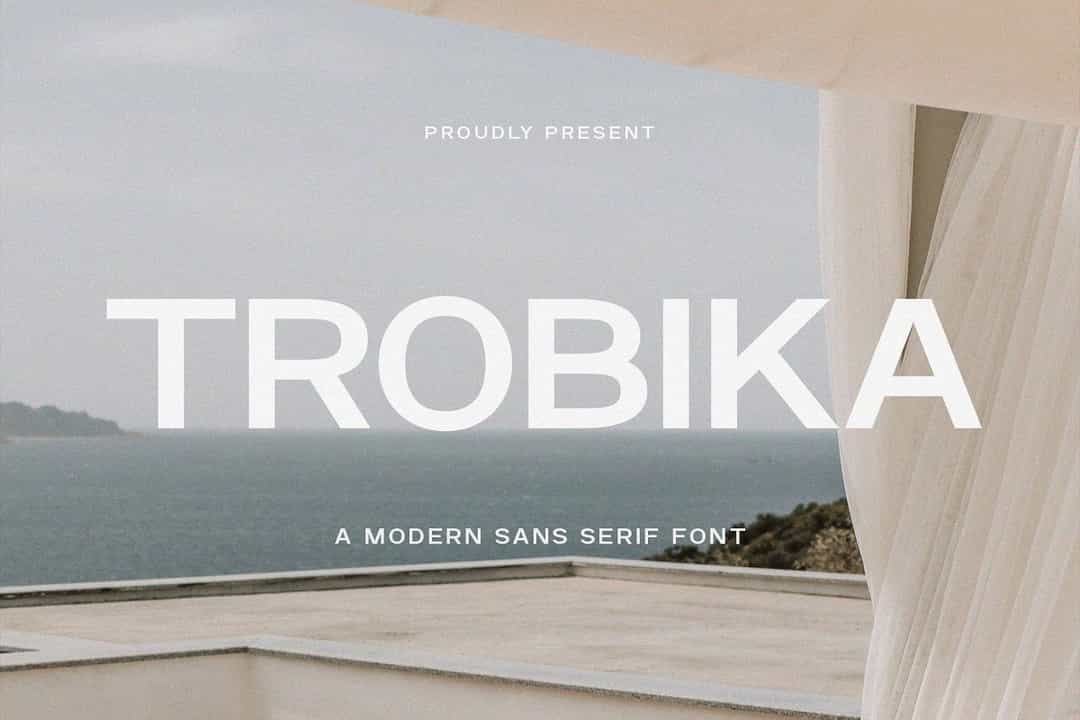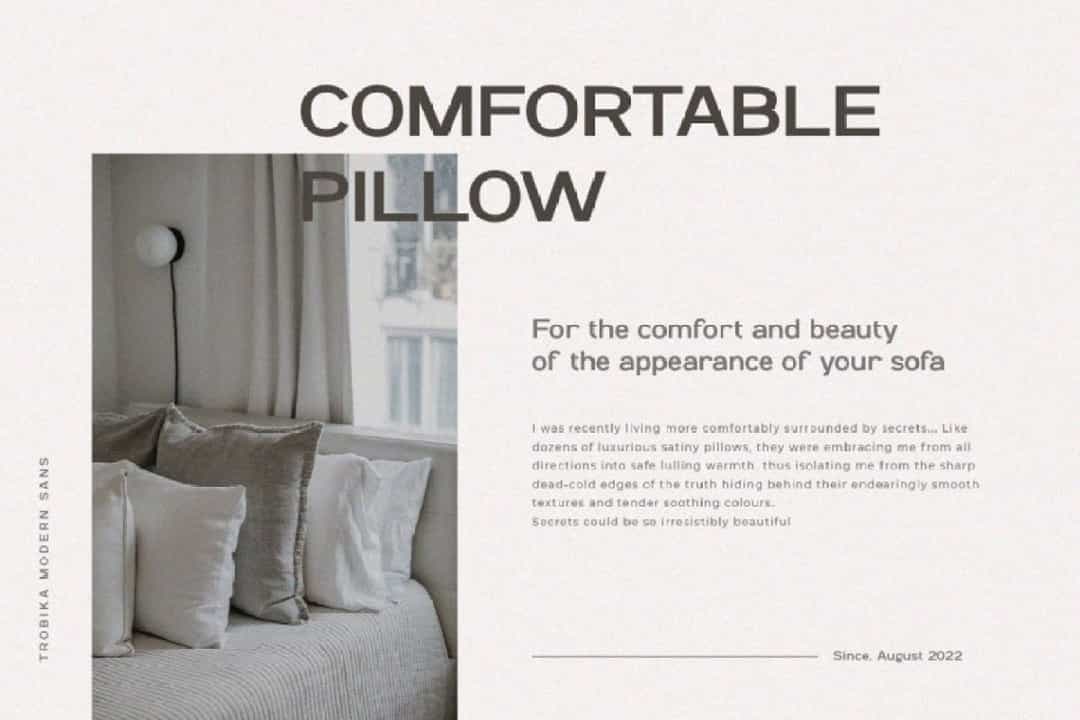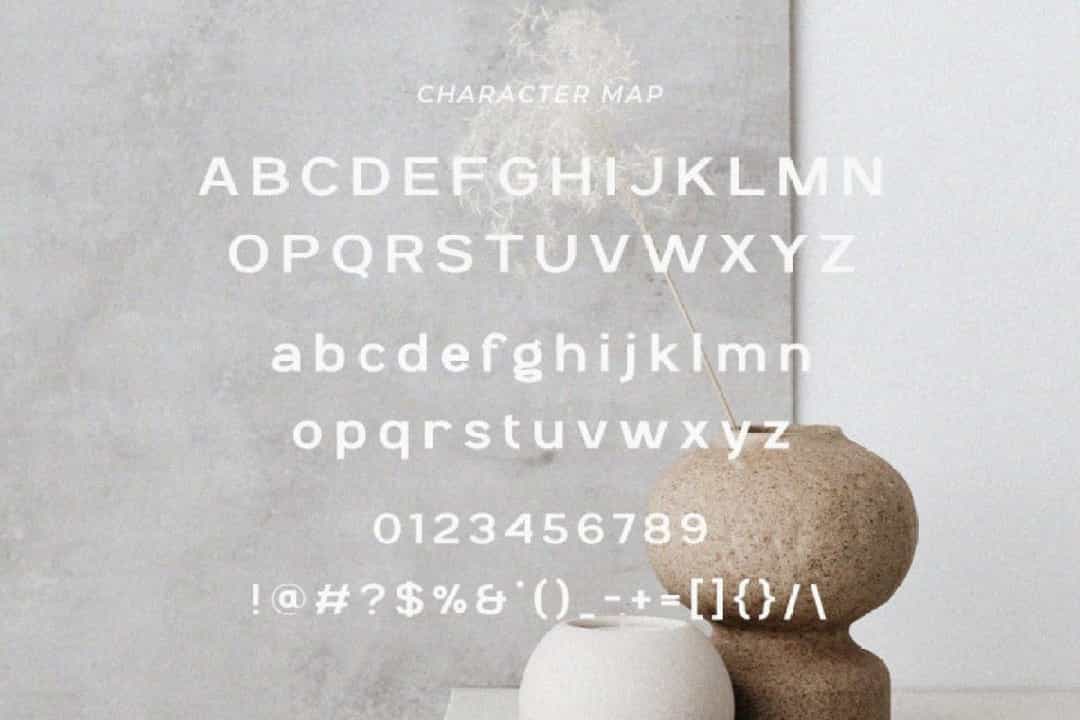
Trobika, an elegant sans serif font, makes an eye-catching design statement when used to design packaging, magazines or invitations. With its classic lines and curves, Trobika lends sophistication to your designs.